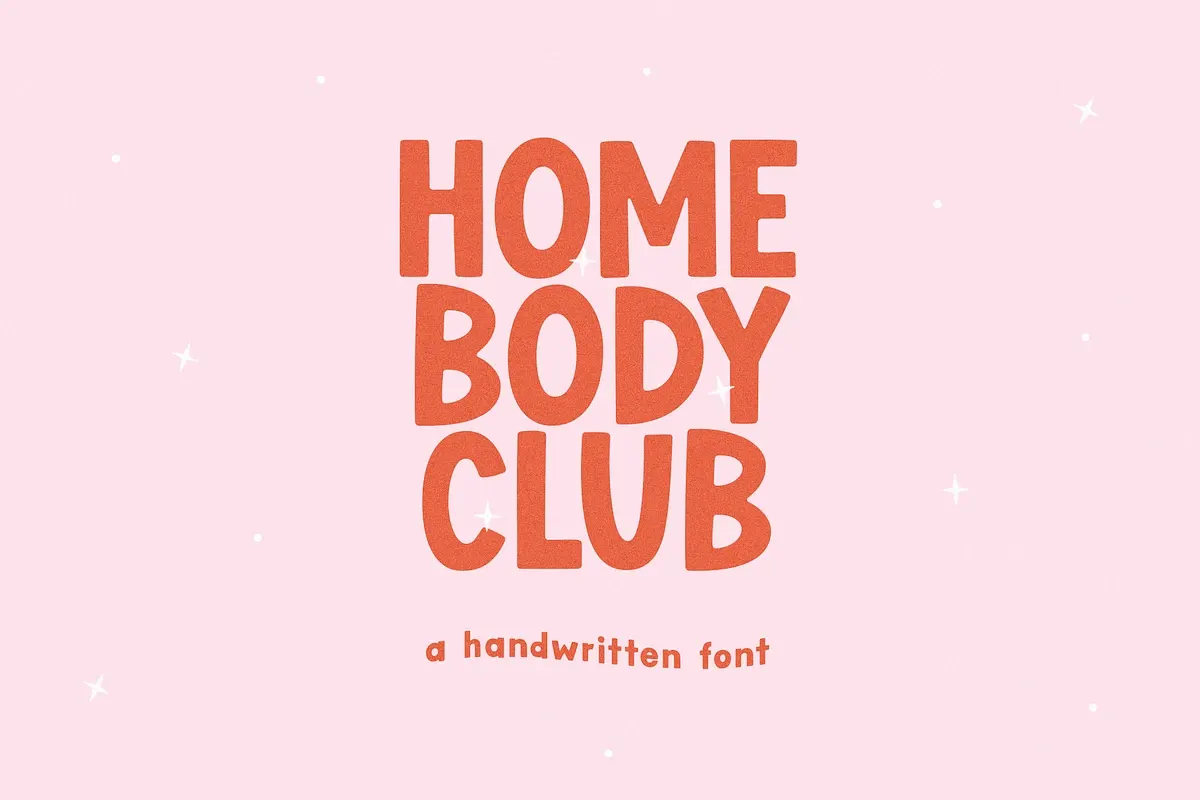
Homebody Club | Sans Font Free Download
Homebody Club | Sans Font Free Download is a modern and clean sans-serif typeface that adds a stylish touch to any design. With its simple yet elegant design, this font is perfect for a wide range of projects, including logos, branding, websites, and more. Its balanced letterforms and excellent readability make it ideal for both digital and print materials.